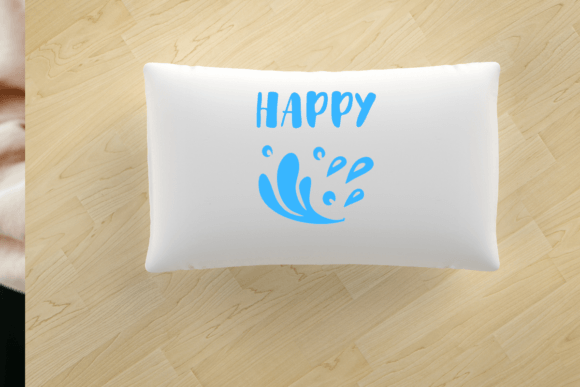
Water Drops Font
Water Drops is a fun and creative dingbat font. Instead of letters, it uses little pictures of water drops in different shapes and patterns. You can use it to make your projects look cool and unique, like for decorating invitations, posters, or social media posts.